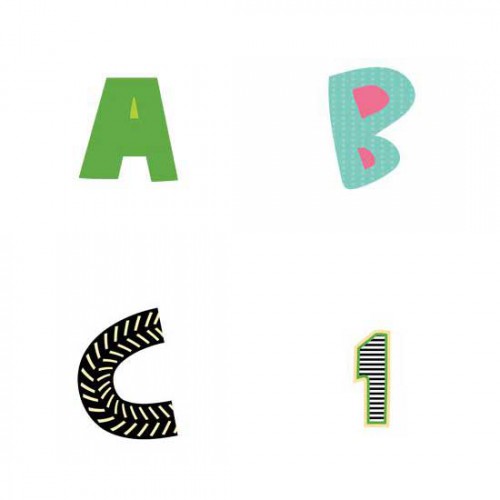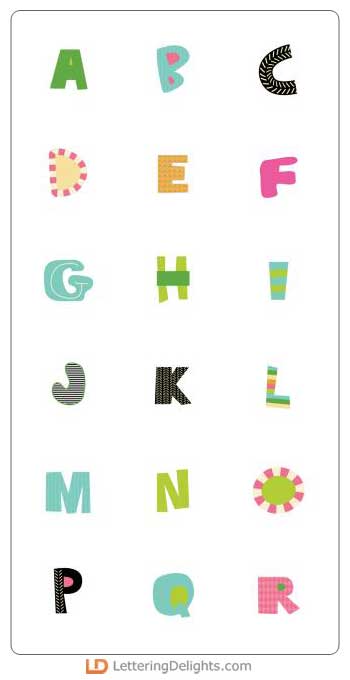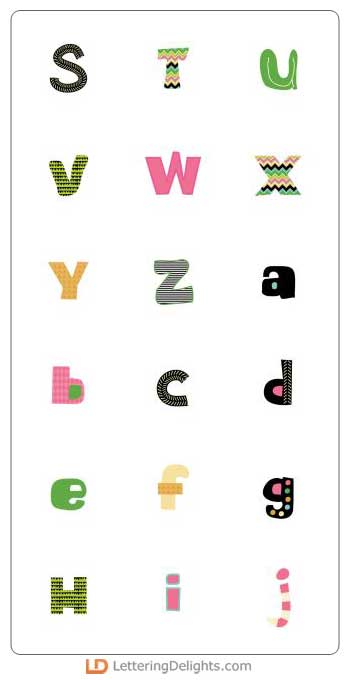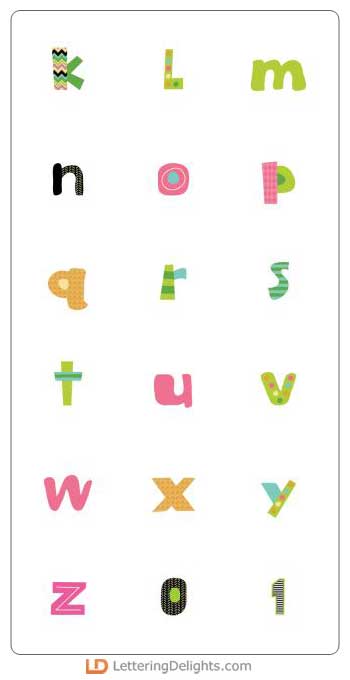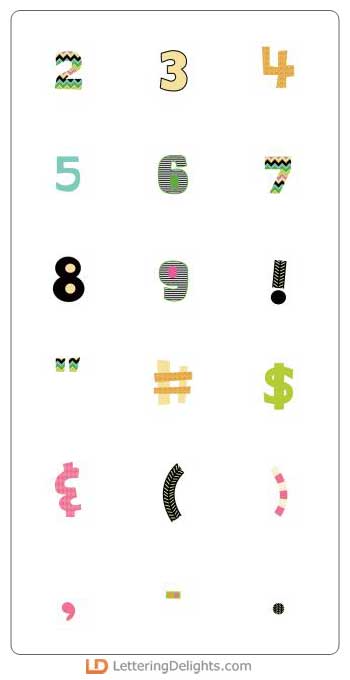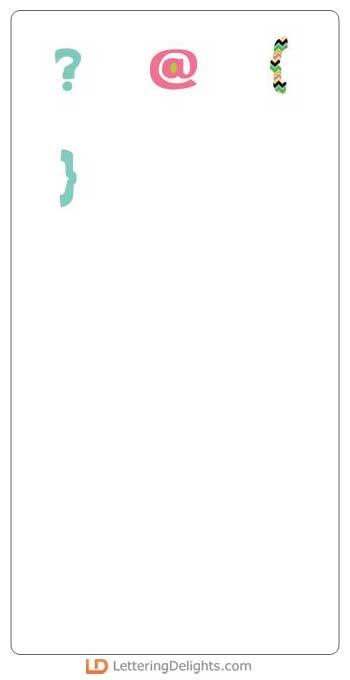
'A' is for 'all'; 'B' is for '-bout'; 'C' is for 'chillin'...It's All 'Bout Chillin' during those warm summer days, and this alphabet is colorful and cool and the perfect compliment to a lazy afternoon.